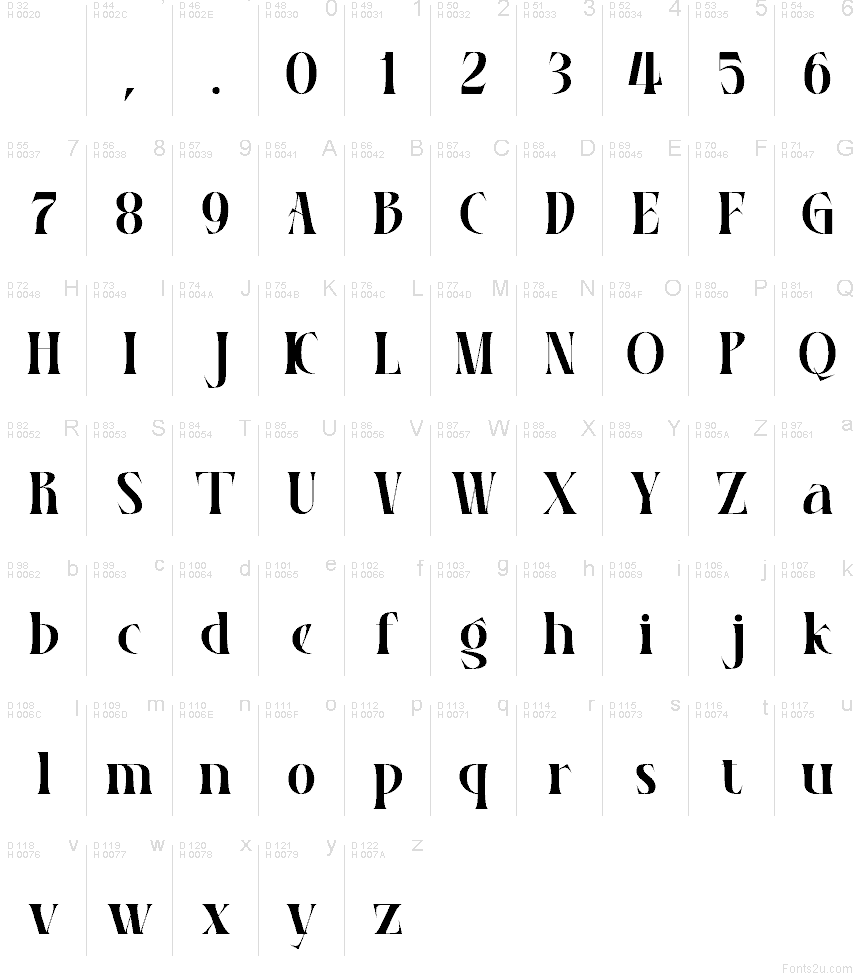
Ravencourt by Muksal Creative is a free retro display font shaped by dramatic vertical swell and deep, blade-like cut-ins that carve the letters into elegant black-and-white segments. That silhouette gives the design a theatrical 1970s poster flavor, with soft outer curves set against sharp interior points.
It makes immediate sense on boutique branding, album covers, cocktail menus, beauty packaging, and fashion editorials where the tall contrast and sculpted openings can carry the layout. Short headlines and logos benefit most, since the font's sweeping rhythm gives a few words a deliberate, decorative presence without needing extra ornament.